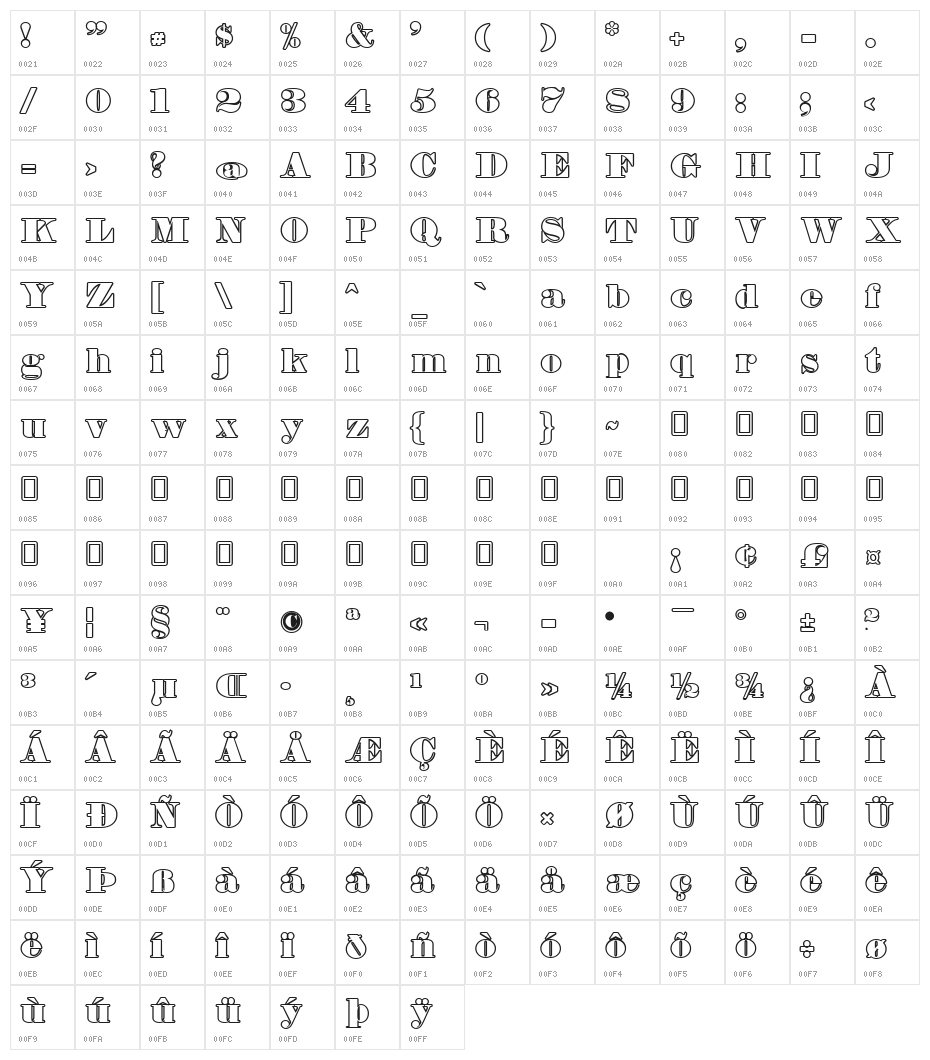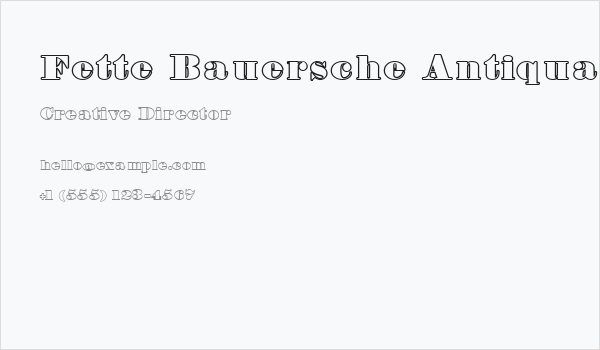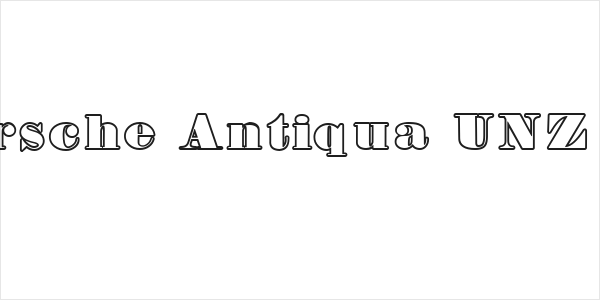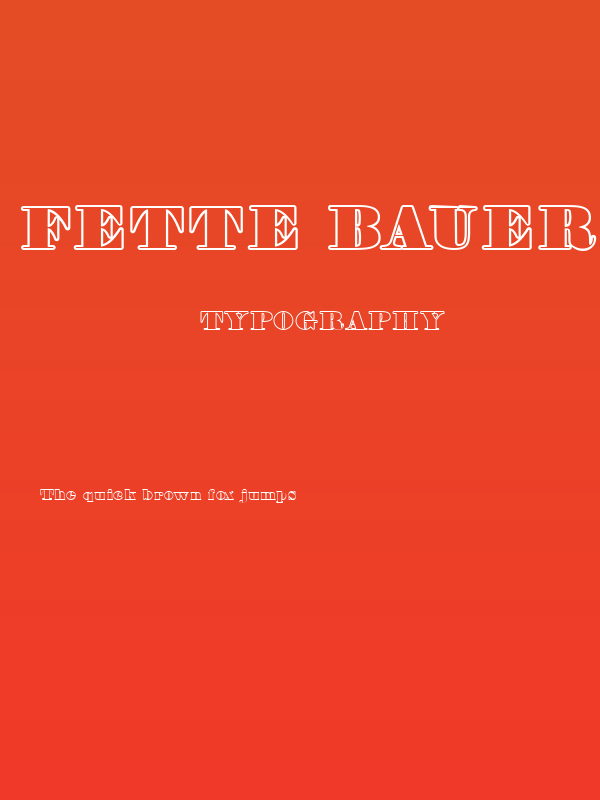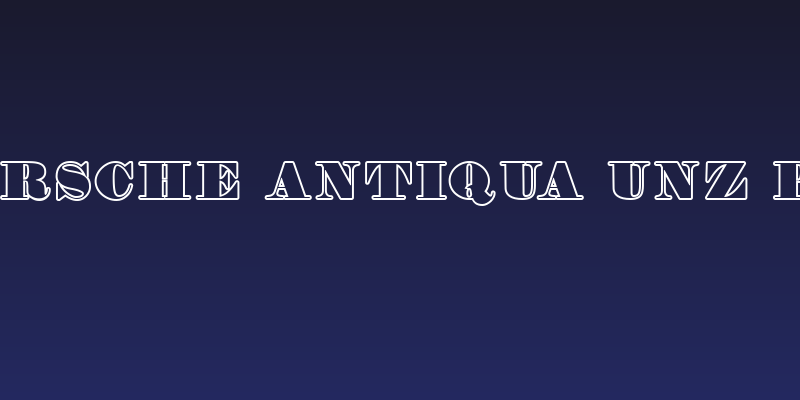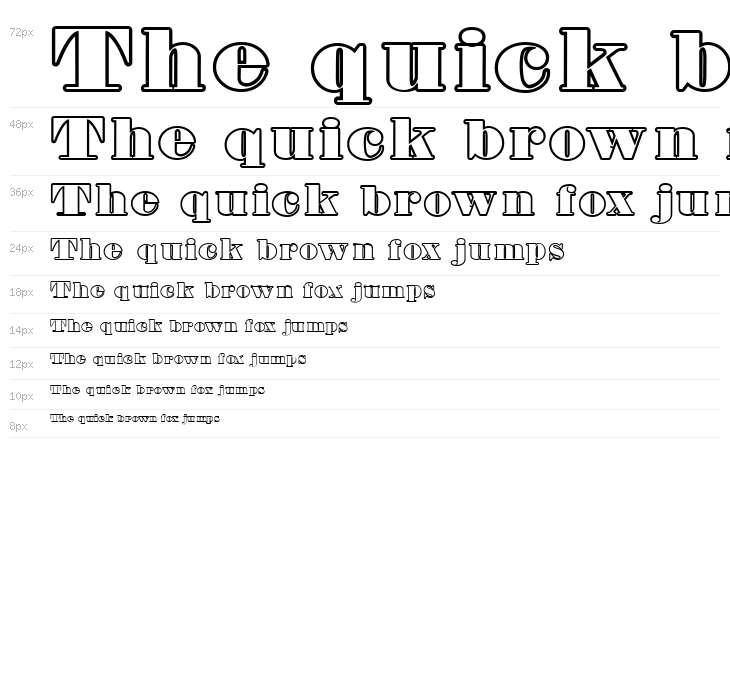
Fette Bauersche Antiqua UNZ Pro Hollow Font
Fette Bauersche Antiqua UNZ Pro Hollow Description
This font features a bold, hollow design with a classic serif style. The uppercase and lowercase letters maintain a consistent structure, with pronounced serifs and a distinct outline that gives a hollow appearance. The numerals and special characters follow the same stylistic approach, ensuring uniformity across all glyphs. The font's hollow nature adds a unique visual interest, making it stand out in various design contexts. Its classic serif elements are balanced with a modern twist, making it versatile for both traditional and contemporary projects.
| Proposed Projects | Ideal for headlines, posters, branding, and any project requiring a bold, eye-catching typeface. |